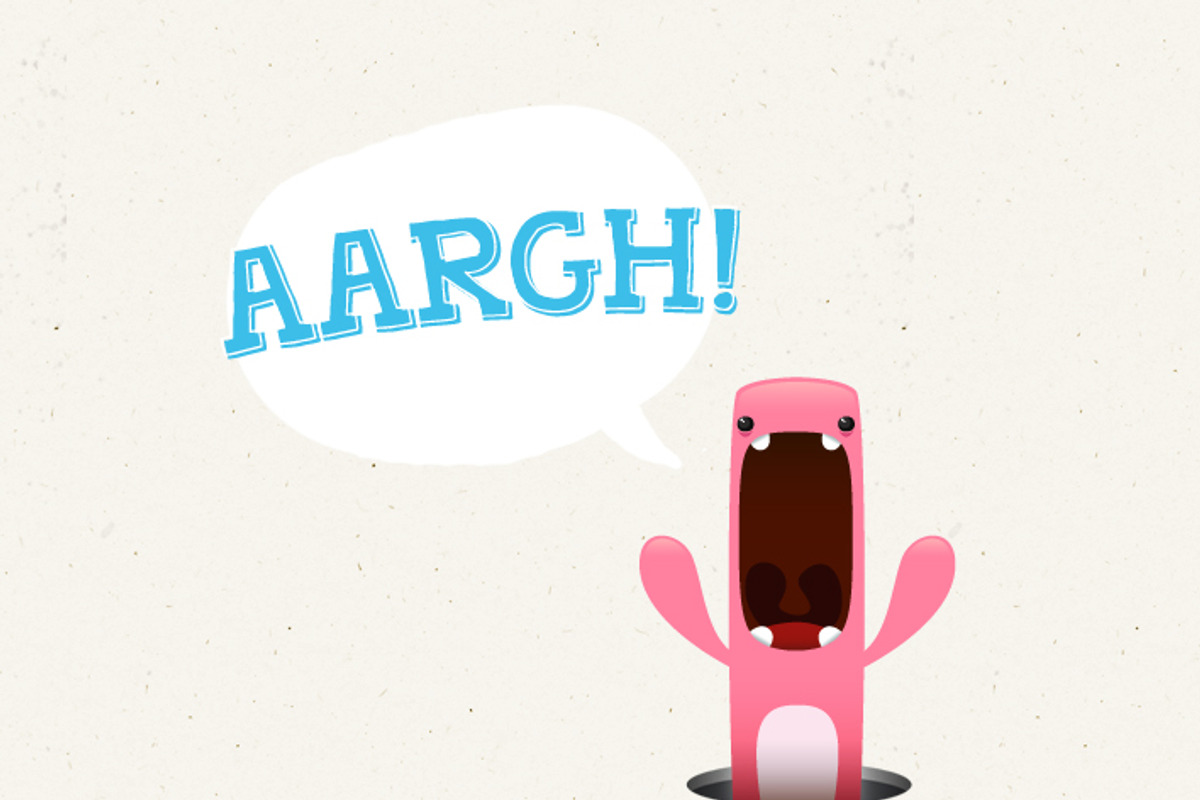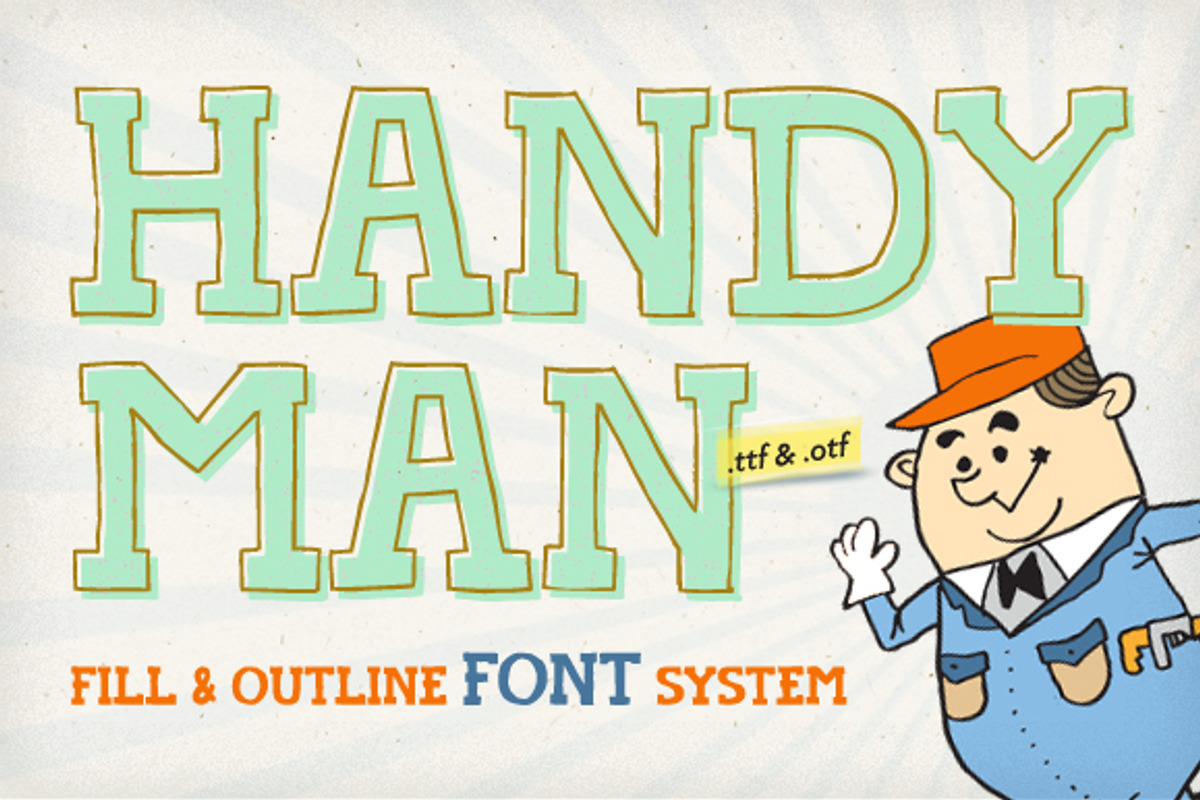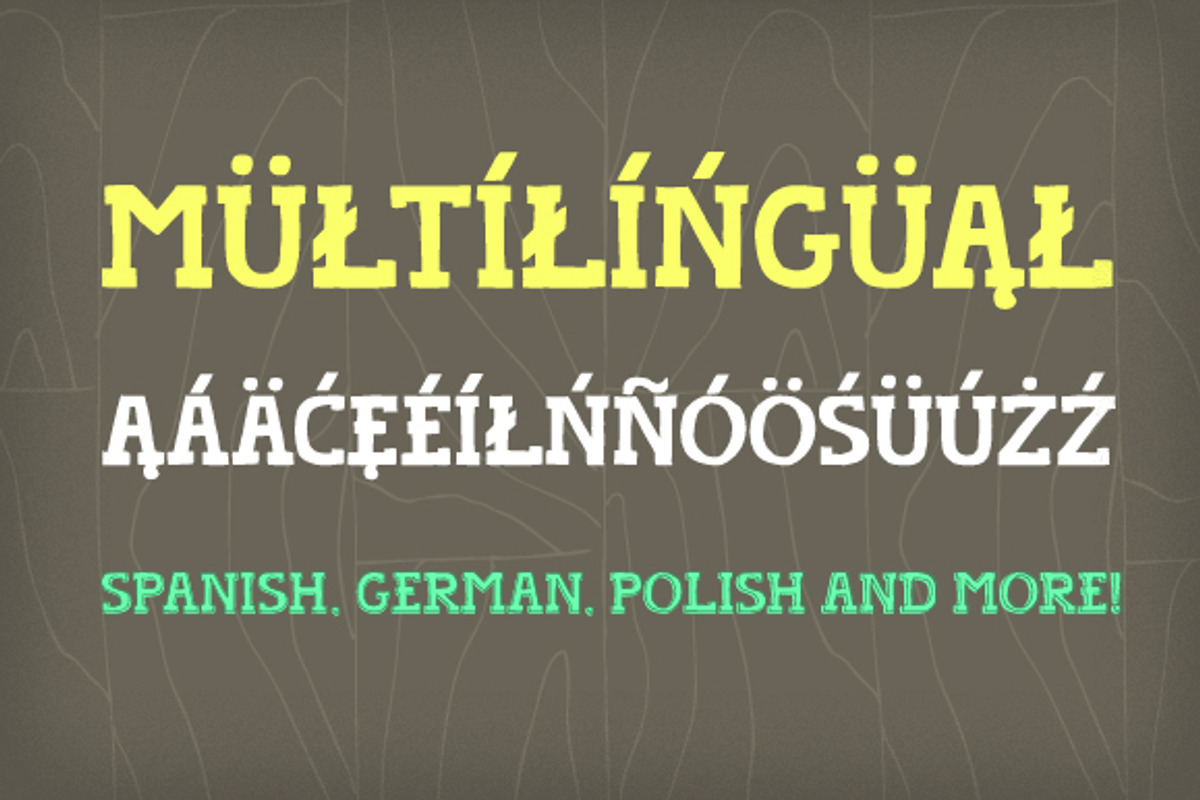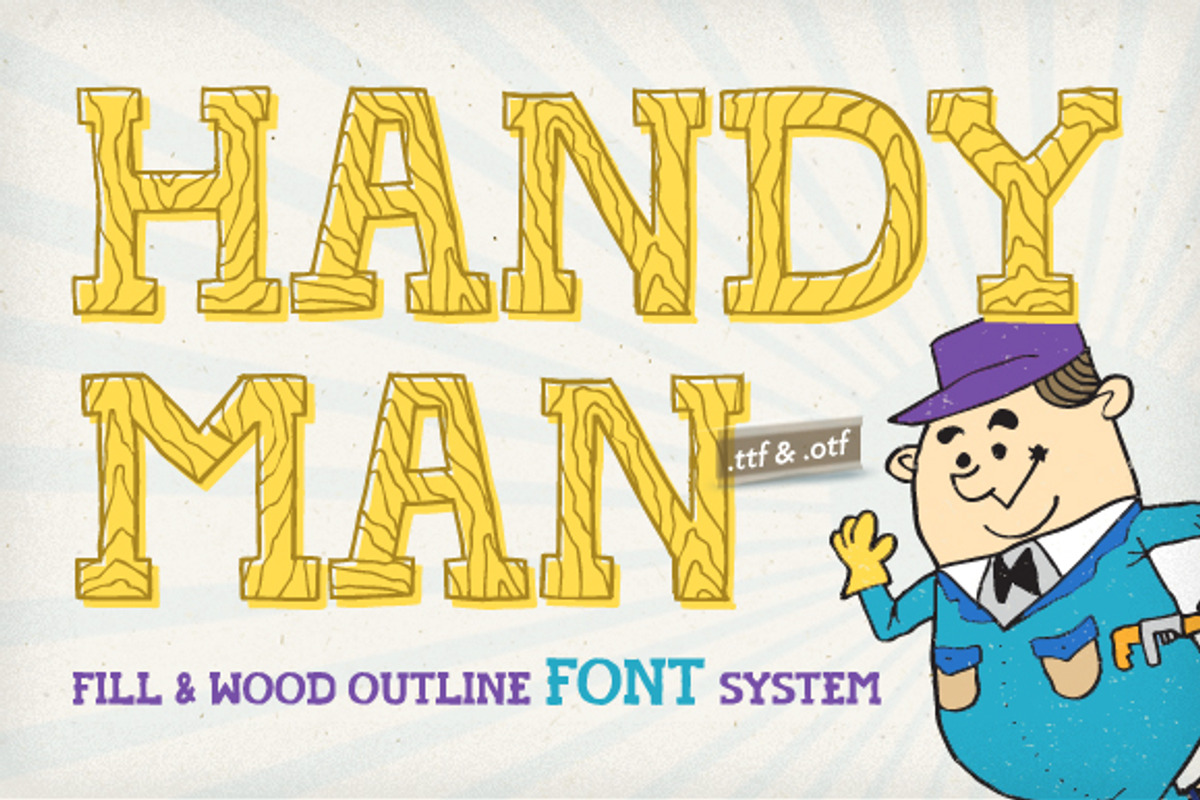
Handyman Font Full Service
Handyman Font Full Service by Frisk Shop is a font selected for branding, posters, packaging, typography.
- It includes font system which you can use to make a 'shift' effect.
- Handyman Regular
- Handyman Outline Regular
- Handyman Wood Outline Regular
Handyman Font Full Service by Frisk Shop fits naturally into Branding, posters, packaging, typography.